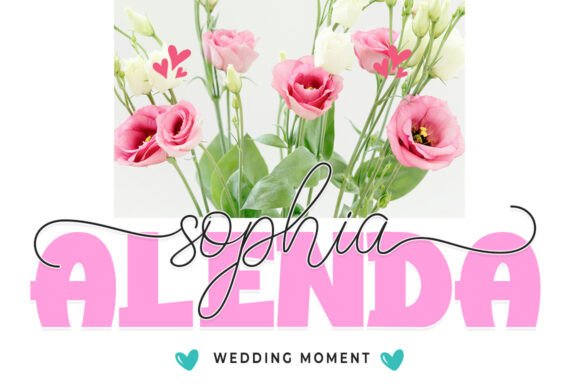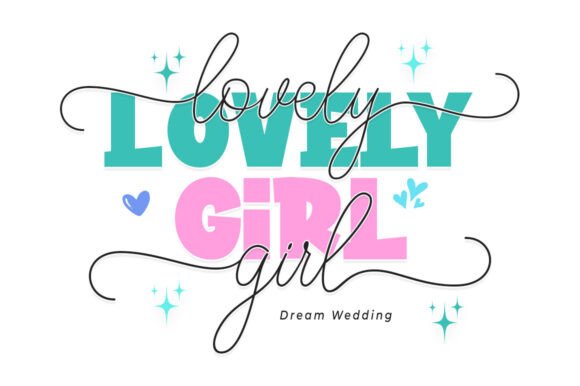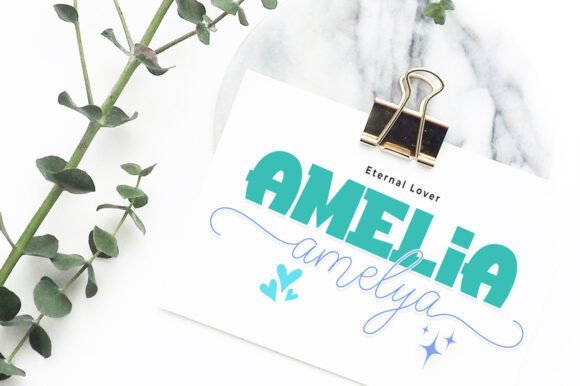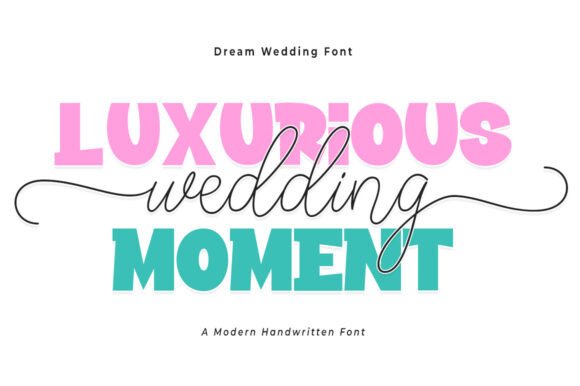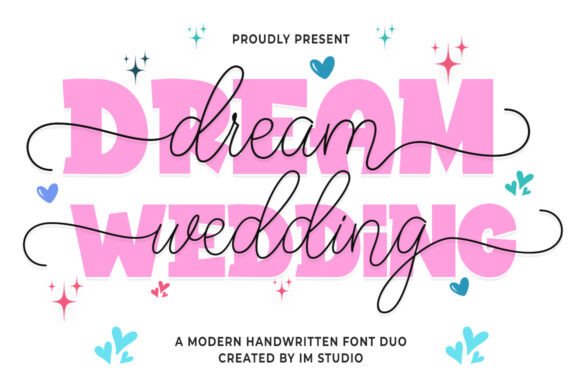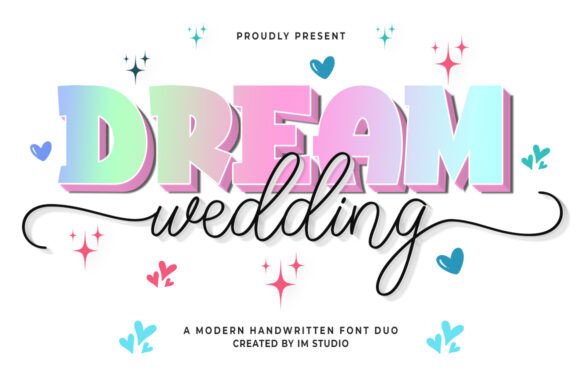
Dream Wedding Duo Font: Elevate Your Designs with Romance and Elegance
Are you searching for the perfect font to add a touch of romance and sophistication to your creative projects? Look no further than the Dream Wedding Duo Font, a versatile duo-font that seamlessly blends the clean lines of sans serif with the flowy elegance of script. This exquisite typeface is designed to impart a sense of romance to all your creative expressions, making it an ideal choice for designers and crafters alike.
What is Dream Wedding Duo Font?
Dream Wedding Duo Font is a carefully crafted typeface that combines the best of both worlds – the simplicity and clarity of sans serif fonts and the elegance and sophistication of script fonts. This unique blend makes it perfect for a wide range of design applications, from wedding invitations and greeting cards to headlines and branding projects.
Key Features of Dream Wedding Duo Font
- PUA Encoding: The Dream Wedding Duo Font is encoded with PUA (Private Use Area), which opens up a wide array of glyphs and ligatures, allowing for a perfect merger with any design backdrop.
- Versatility: This font is incredibly versatile and can be used for a variety of design projects, from romantic wedding invitations to bold headlines and captivating branding projects.
- Elegance and Sophistication: The Dream Wedding Duo Font exudes elegance and sophistication, making it perfect for designers and crafters who want to add a touch of romance to their creations.
- Wedding Invitations: Create beautiful and romantic wedding invitations that set the tone for the big day.
- Greeting Cards: Add a touch of elegance and sophistication to your greeting cards, making them perfect for special occasions.
- Headlines and Branding: Use the Dream Wedding Duo Font to create captivating headlines and branding projects that exude romance and sophistication.
- Unique and Creative: The Dream Wedding Duo Font is a unique and creative typeface that will set your designs apart from the rest.
- Elegance and Sophistication: This font exudes elegance and sophistication, making it perfect for designers and crafters who want to add a touch of romance to their creations.
- Use Ligatures and Glyphs: Take advantage of the PUA encoding and use ligatures and glyphs to add an extra touch of elegance and sophistication to your designs.
| Font Name | Dream Wedding Duo Font |
| Author | IM Studio |